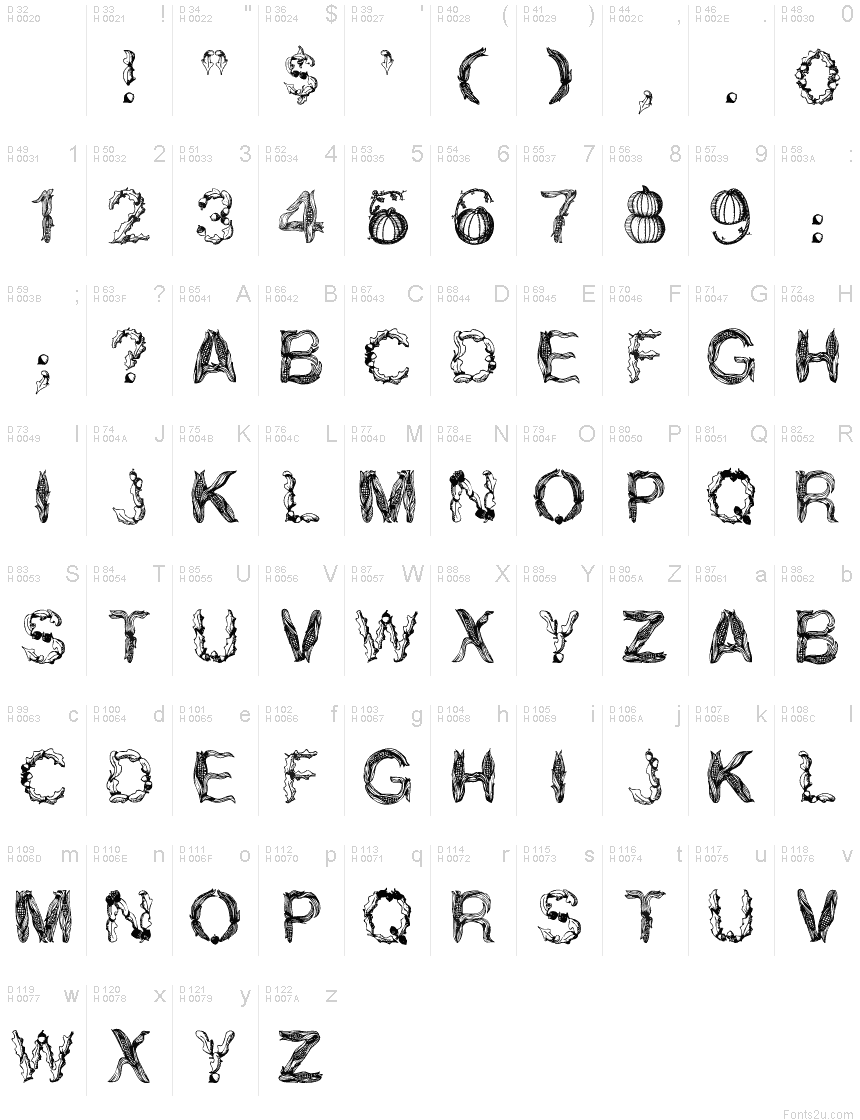
Autumn Gifts
Autumn Gifts font by West Wind Fonts is a free decorative display font that turns lettering into a tangle of twigs, bark, and curled leaves. The rough edges and uneven rhythm give it a hand-gathered woodland feel, so every word looks like it came off the forest floor instead of a clean digital grid.
Using Autumn Gifts adds instant atmosphere to harvest festival posters, Halloween invitations, rustic packaging, scrapbook titles, classroom fall projects, farm stand signs, and seasonal social posts. Keep Autumn Gifts fairly large so the organic detail stays clear, and pair this free font with a quiet serif or simple sans for balance.